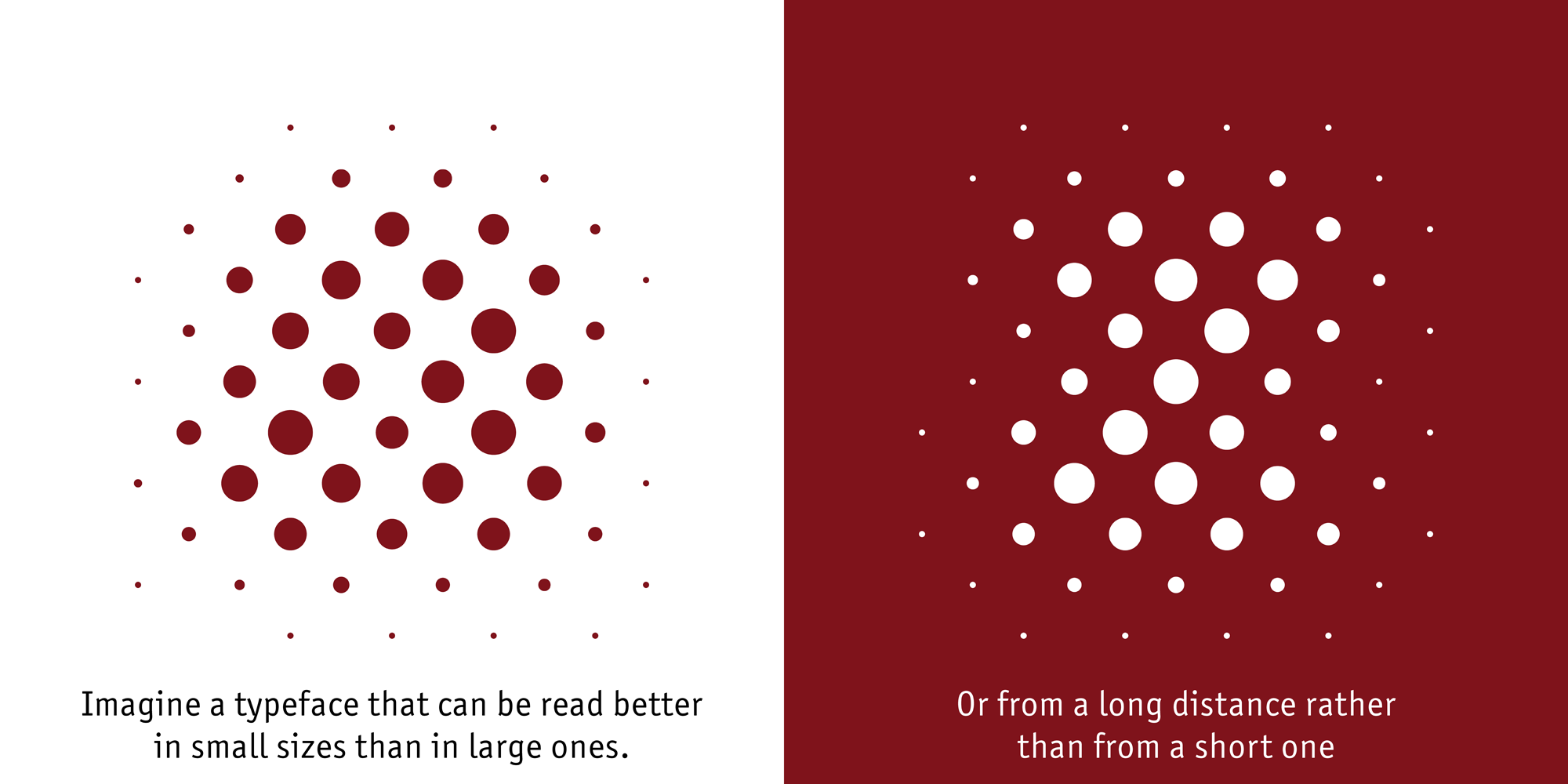
Kontext Dot Font Free Download – Modern Pixel-Art Inspired Typography
Give your designs a digital edge with the Kontext Dot Font Free Download, a contemporary typeface that blends pixel-art aesthetics with clean, modern readability. Perfect for tech brands, gaming interfaces, and retro-futuristic designs, this font bridges nostalgia and innovation.
Why Choose Kontext Dot Font?
The Kontext Dot Font Free Download merges digital charm with functionality:
Pixel-Perfect Design – Crisp dot-matrix letterforms
Retro-Futuristic Vibe – Nostalgic yet modern appeal
Screen-Optimized – Ideal for UI/UX and digital displays
Indie game interfaces
Cyberpunk-inspired graphics
Retro product packaging
Digital art installations
Key Features
Multiple Weights – From light to bold for versatility
Alternate Glyphs – Customizable pixel variations
Multilingual Support – Basic Latin character set
Design Applications
8-bit style logos and headers
Gaming app interfaces
Retro tech posters
Digital artist portfolios
Pro Tip: Amplify the pixel aesthetic with:
Glitch effects
RGB color splits
Grid-based layouts
CRT screen textures
Designer Note: Looks sharp in monochrome or vibrant neon color schemes.